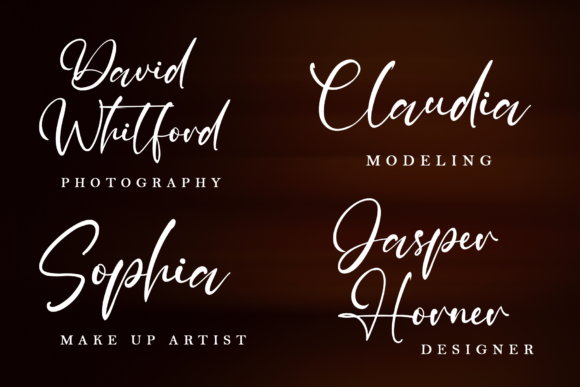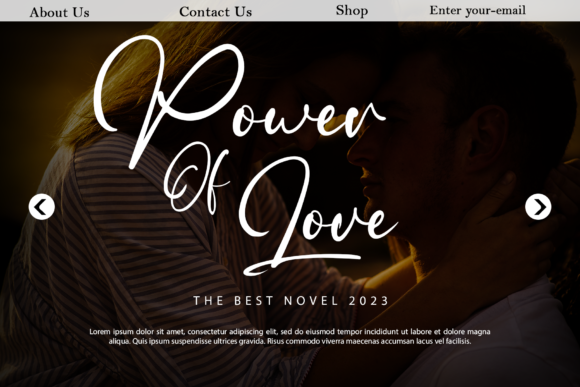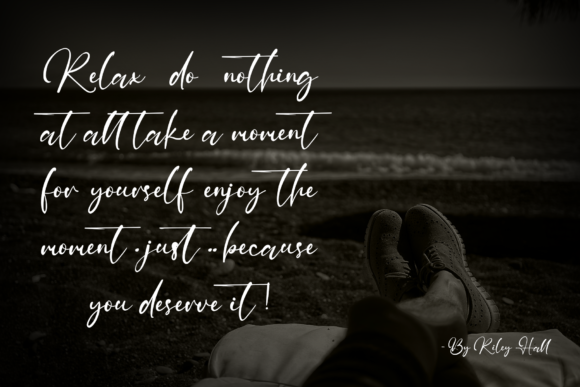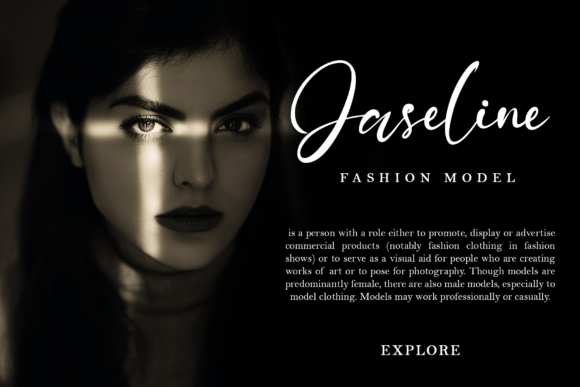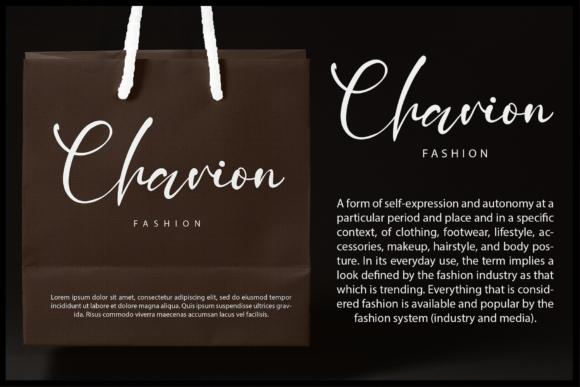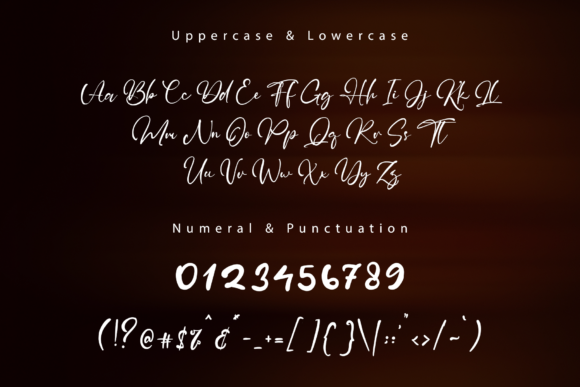
Introducing Freedom Pillar Font: Elevate Your Designs with Modern Script Elegance
In the world of typography, a font can make or break a design. For designers and crafters looking for that perfect blend of modernity and elegance, the Freedom Pillar Font is an exceptional choice. This modern script font is not just a collection of letters and numbers; it’s a versatile tool designed to elevate your projects to new heights. Whether you’re working on logotypes, branding designs, logos, digital lettering arts, t-shirt/apparel designs, posters, magazines, signs, advertising designs, or anything in between, Freedom Pillar Font is the perfect companion for your creative journey.
What Makes Freedom Pillar Font Stand Out?
Freedom Pillar Font stands out for its unique blend of modern script style and readability. Its elegant strokes and contemporary feel make it an ideal choice for designers who want to add a touch of sophistication to their work. Here are some key features that make Freedom Pillar Font a must-have in your typography arsenal:
- Modern Script Style: With its fluid and dynamic strokes, Freedom Pillar Font brings a modern script style that can add elegance and personality to any design.
- Versatility: This font is not limited to a specific type of project. Its versatility makes it suitable for a wide range of applications, from digital designs to print materials.
- Readability: Despite its script nature, Freedom Pillar Font maintains a high level of readability, making it perfect for both headings and body text.
- Easy to Use: Designed with user-friendliness in mind, Freedom Pillar Font can be easily integrated into your design workflow, allowing you to focus on creativity rather than technicalities.
Applications of Freedom Pillar Font
The applications of Freedom Pillar Font are vast and varied. Here are some of the most notable uses:
- Logotypes and Branding: Create memorable brand identities with a font that exudes modernity and elegance.
- Logos: Whether you’re designing a logo for a startup or an established brand, Freedom Pillar Font can help you create a logo that stands out.
- Digital Lettering Arts: Add a personal touch to your digital art with the fluid strokes and modern feel of Freedom Pillar Font.
- T-Shirt/Apparel: Design unique and stylish apparel that turns heads with this versatile font.
- Posters and Magazines: Elevate your print materials with a font that combines style and readability.
- Signs and Advertising Designs: Make your message clear and compelling with Freedom Pillar Font’s elegant and modern script.
Tips for Maximizing the Potential of Freedom Pillar Font
To get the most out of Freedom Pillar Font, consider the following tips:
- Experiment with Sizes: Play around with different font sizes to create visual hierarchy and emphasis in your designs.
- Pair it Wisely: Combine Freedom Pillar Font with complementary fonts to create contrast and enhance your design.
- Adjust Letter Spacing: Fine-tune the letter spacing to ensure optimal readability and aesthetic appeal.
- Use it for Headings and Subheadings: Take advantage of the font’s elegance by using it for headings and subheadings, and pair it with a simpler font for body text.
Freedom Pillar Font is more than just a modern script font; it’s a creative tool designed to bring your designs to life. Its elegance, versatility, and readability make it an invaluable asset for designers and crafters looking to add a touch of sophistication to their work. Whether you’re creating logotypes, branding designs, logos, or any other type of project, Freedom Pillar Font is sure to elevate your designs and help you achieve your creative goals.
So, why settle for ordinary when you can create something extraordinary with Freedom Pillar Font? Dive into the world of modern script typography and unlock new possibilities for your designs.